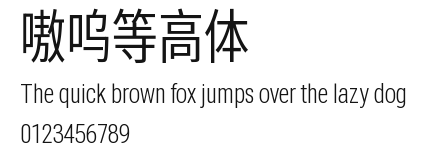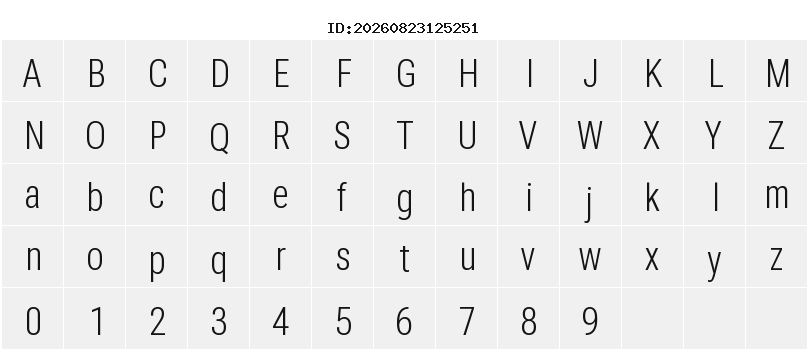
嗷呜等高体 Preview
• Font Name: 嗷呜等高体
• Font ID: Howling EqHi Sans SemiLight Condensed:Version 1.101
• Full Font Name: Howling EqHi Sans SemiLight Condensed
• Version: Version 1.101
• PostScript Name: HowlingEqHiSans-SemiLightCondensed
• Manufacturer: howlingFounts
• Description: Based on WenYuan Sans SC Flex VF and Roboto Flex by Berlow after Robertson. Built with OFL Font Baker.
About 嗷呜等高体.ttf
嗷呜等高体.ttf is a modern, elegant sans-serif font designed for ultimate readability and visual harmony. Perfect for branding, headlines, web design, and print materials.